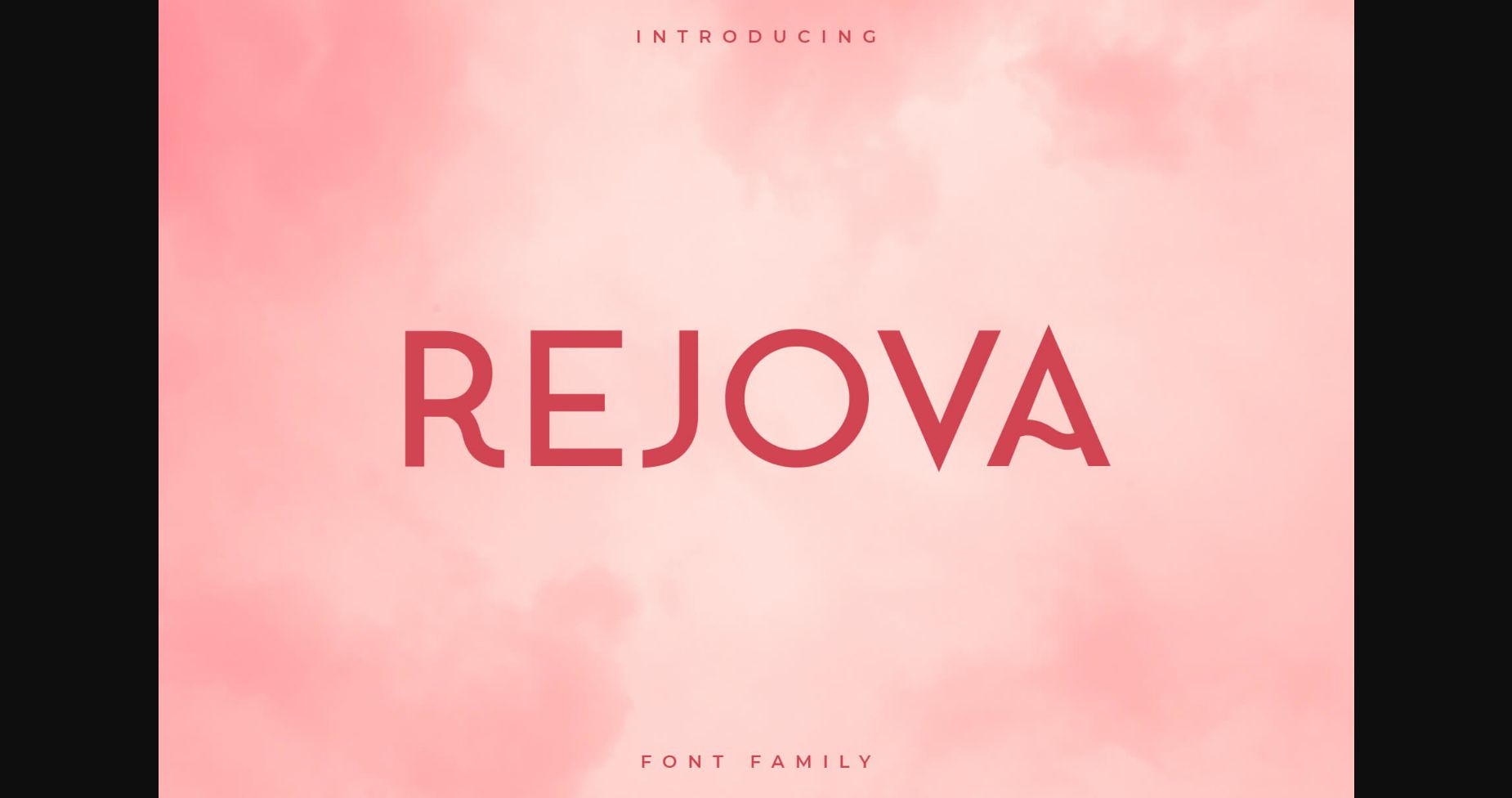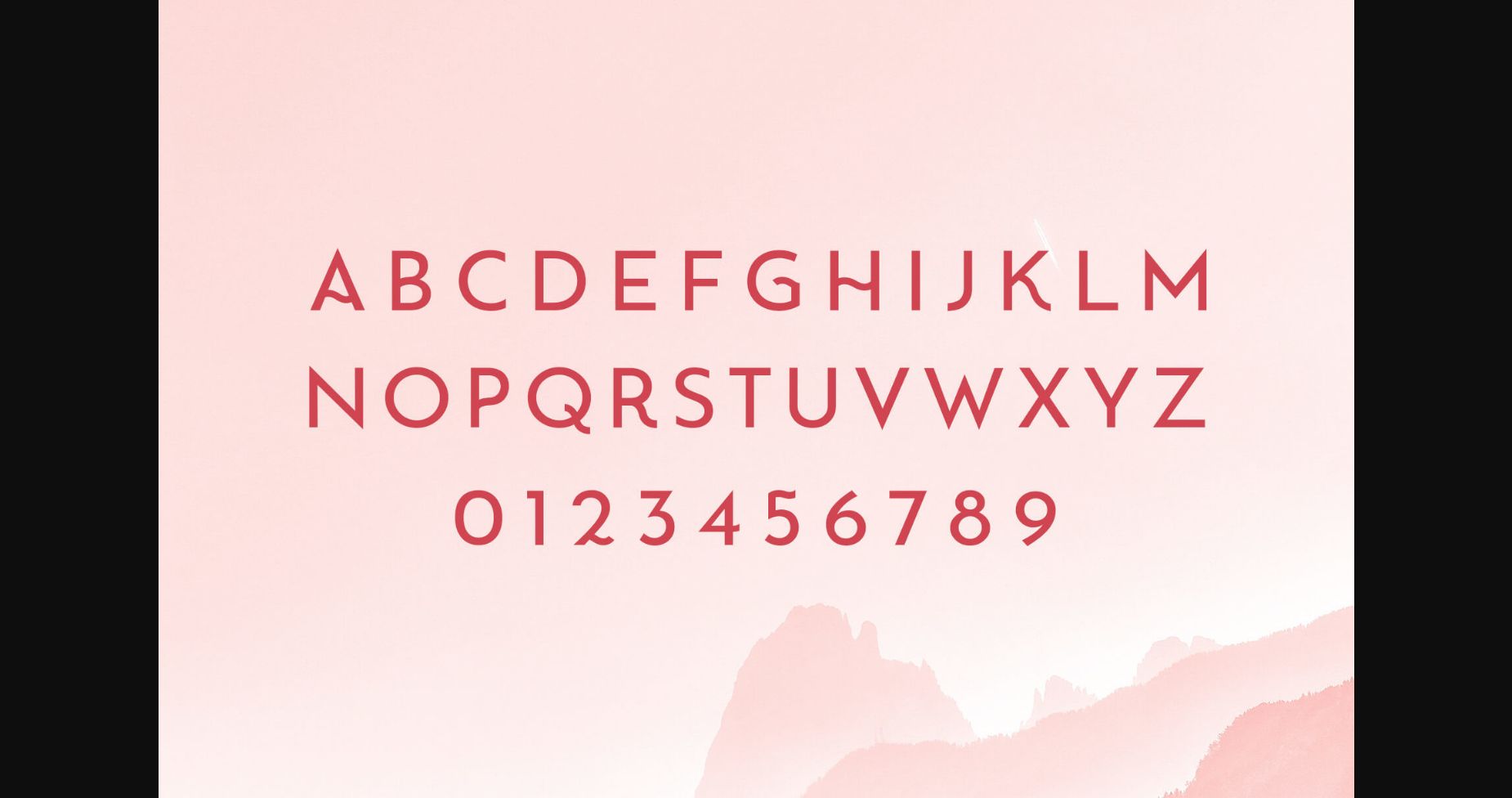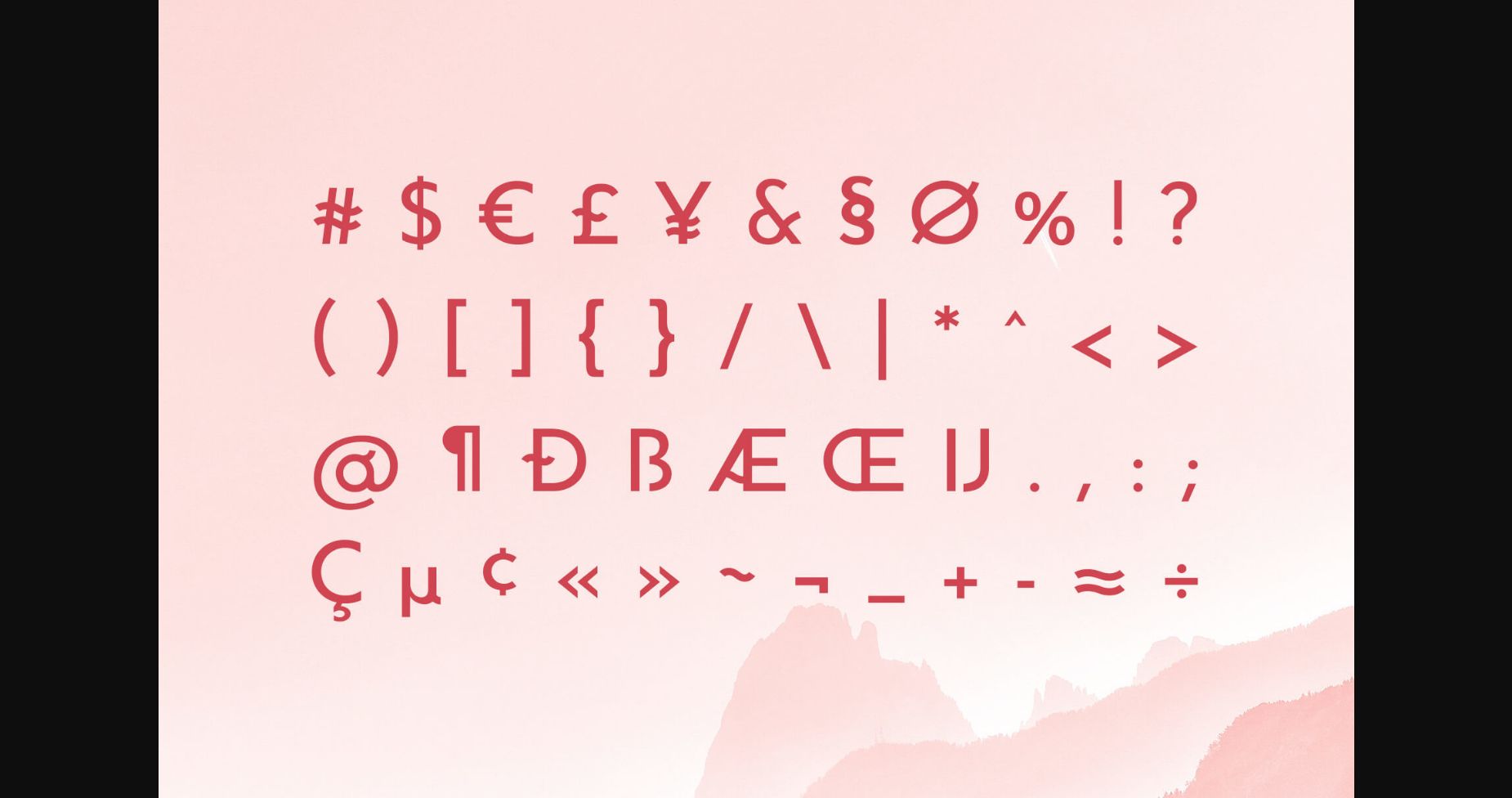
About Rejova Font
Rejova is an elegant and adaptable sans serif font. Suitable to a wide variety of designs due to its neat and simple style, this font has the potential to become your favorite go-to font, no matter the occasion!